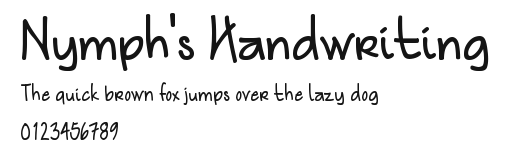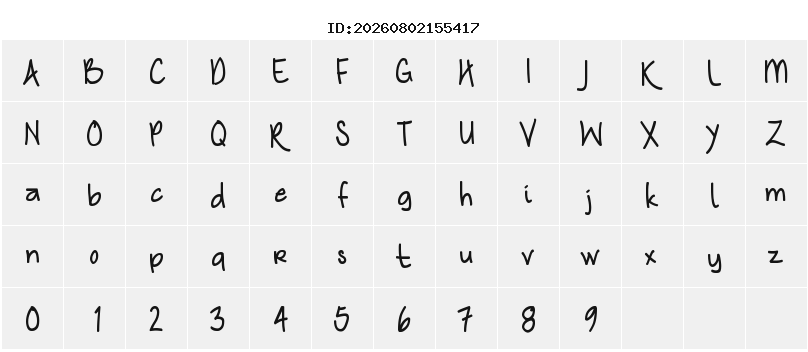
• Font Name: Nymph's Handwriting
• Description: Nymph's Handwriting is based on the handwriting of font designer Lauren Thompson. Updates made January 22, 2010 include subtle changes to character shapes and weight, as well as changes to spacing of several aspects.